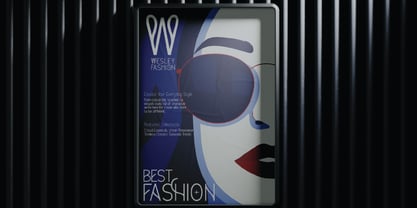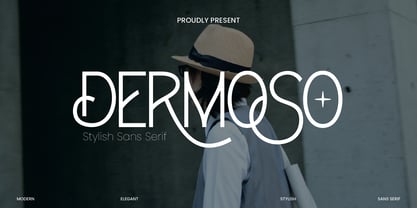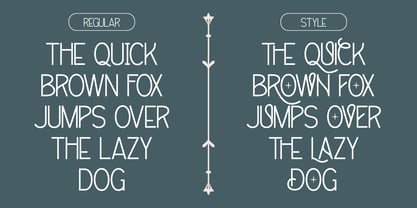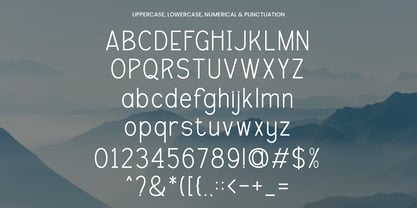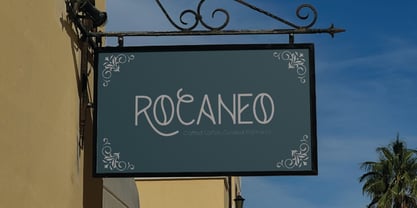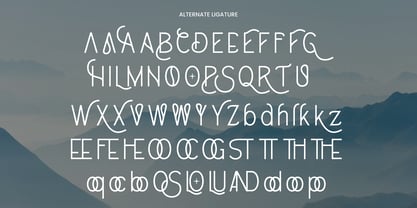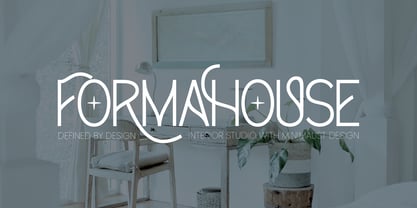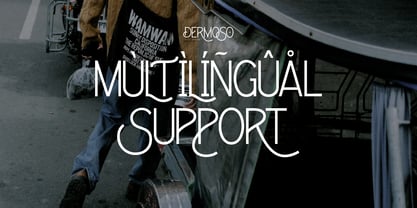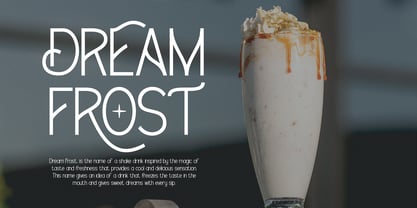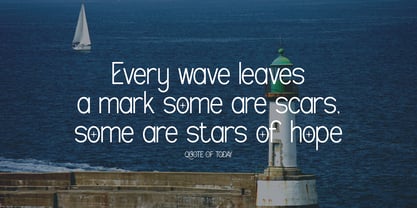
Dermoso
ermoso is a stylish sans serif font that blends modern clarity with a twist of creative flair. With its clean lines, graceful loops, and uniquely formed letter shapes, Dermoso captures both minimalism and personality—making it an exceptional choice for branding and editorial designs that need a distinctive, fashion-forward voice. Crafted for high impact and elegance, Dermoso excels in applications like fashion branding, beauty packaging, signage, and boutique promotions. Its smooth geometry and playful alternates give every word a sophisticated yet approachable feel, perfect for designs that demand visual interest and charm. Whether you’re working on logos, magazine headlines, product displays, or social content, Dermoso delivers style, refinement, and a confident edge to your typography.
Features :
Multilingual, Uppercase alphabet A-Z, Lowercase alphabet a-z, Numbers 0-9, Some punctuation, Alternates & Ligatures